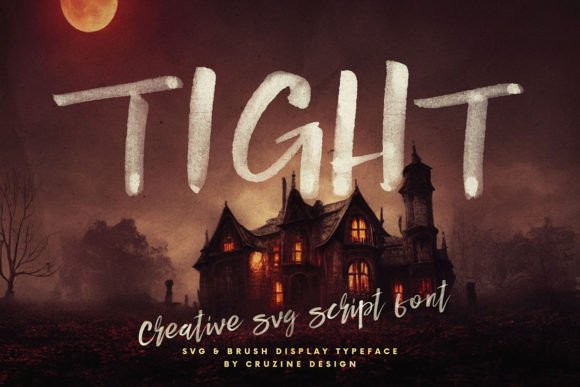
Calling all creative visionaries, filmmakers, and design enthusiasts! Tight Font is here to revolutionize your visual storytelling. This bold and dynamic script font, crafted by the masterminds at JumboDesign, possesses a character that is as unique as your imagination.
Immerse yourself in the world of Tight Font, where your words leap off the screen with confidence and energy. Its thick, exaggerated strokes dance across your designs, creating an unforgettable impression that lingers in the minds of your audience. Whether you're crafting captivating movie subtitles that draw viewers into the narrative, designing eye-catching headlines that demand attention, or creating logos that exude personality, Tight Font is your ultimate weapon.
Its bold and assertive presence ensures that your message stands out from the crowd, commanding attention and leaving a lasting impact. Unleash the power of Tight Font and let your creativity soar. Transform your projects into masterpieces, captivate your audience, and make a statement that resonates.
So, why settle for ordinary when you can embrace the extraordinary? Choose Tight Font today and experience the transformative power of a font that ignites your imagination and brings your stories to life. Let Tight Font be your muse, your creative companion, and the catalyst for your visual storytelling journey.